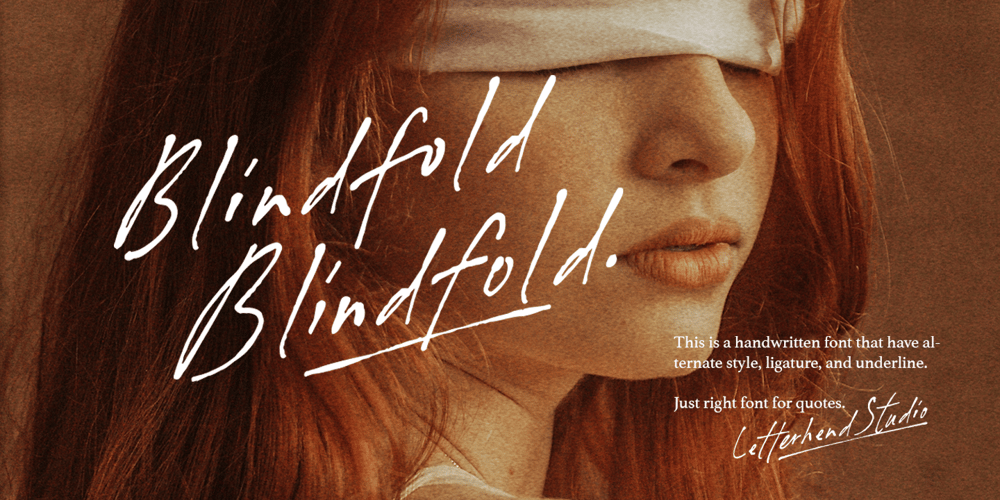
Blindfold
Blindfold font
Blindfold Font Family was designed by Hendry Juanda and published by Letterhend. Blindfold contains 2 styles and family package options. Blindfold – an organic signature script with natural handwritting feel. This handwritten font that have alternate,ligature and underline, Just right for quotes.This type of font perfectly made to be applied especially in logo, headline, signage and the other various formal forms such as invitations, labels, logos, magazines, books, greeting / wedding cards, packaging, fashion, make up, stationery, novels, labels or any type of advertising purpose.Features : Uppercase & lowercase Numbers and punctuation Alternates & Ligatures Multilingual Support PUA encoded